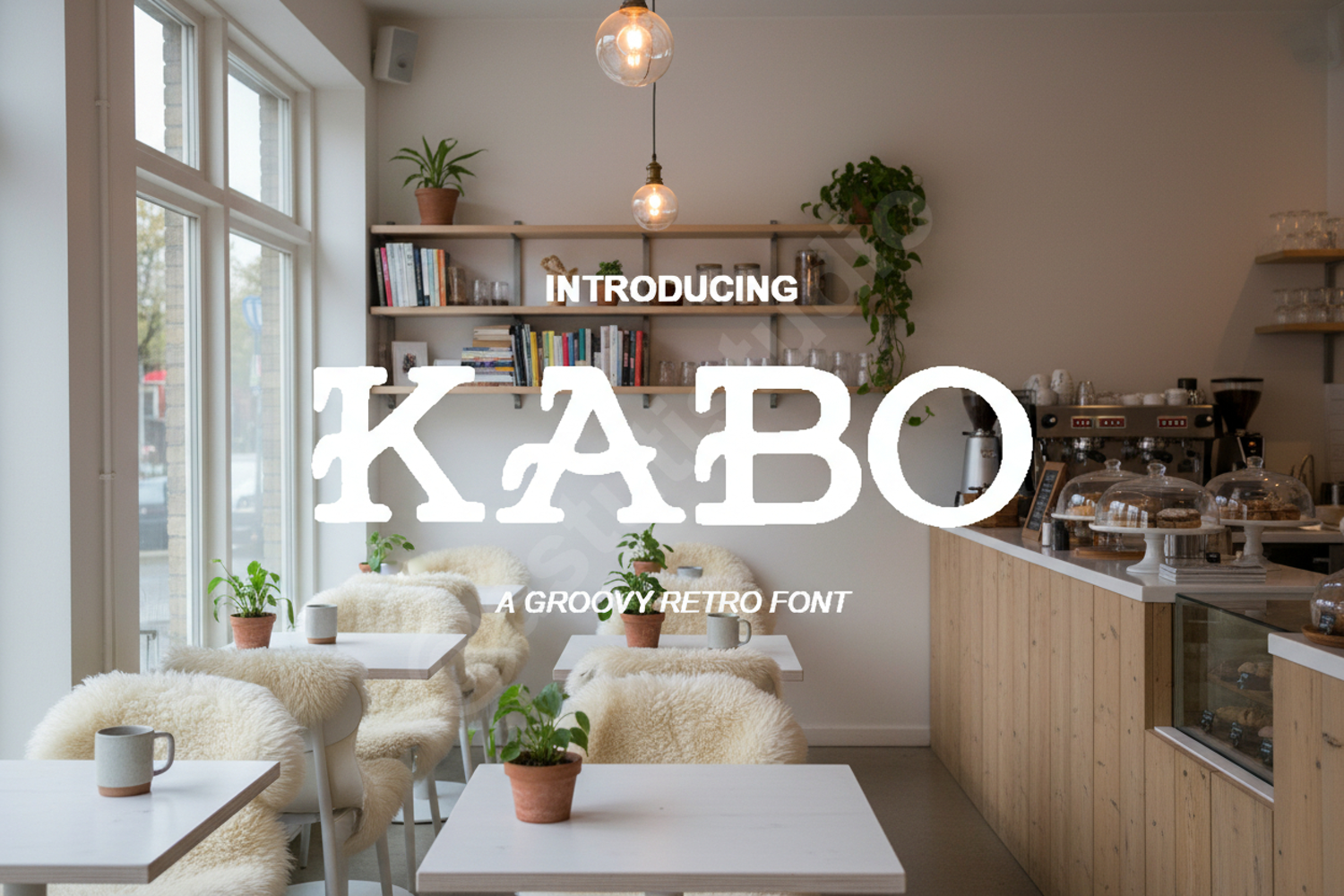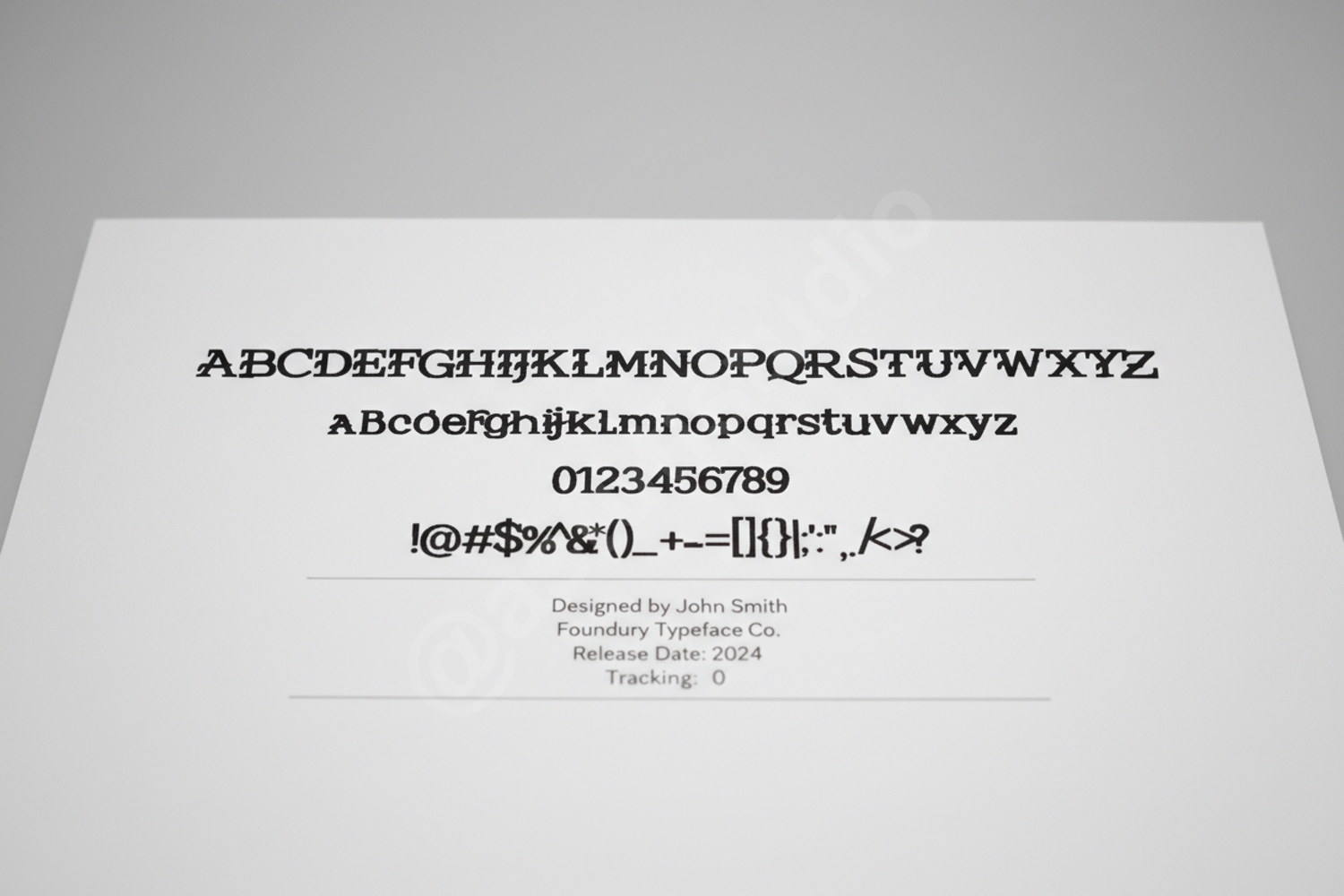
Kabo | Modern Minimalist Sans Serif
Kabo
Kabo is a premium sans serif typeface that embodies modern simplicity and sophisticated design. Crafted with clean lines and balanced proportions, Kabo offers a versatile solution for designers looking to elevate their creative projects with a touch of contemporary elegance and high-end appeal.
- Comprehensive Character Set (Uppercase and Lowercase)
- Numerals and Punctuation
- Branding and Identity: Create memorable logos and cohesive brand guidelines.
- Editorial Design: Perfect for headlines, pull quotes, and body text in magazines.
- Digital Marketing: Enhance social media graphics and professional advertising banners.
- Web Design: Ensure a clean and readable user experience across all digital platforms.
- Corporate Stationery: Ideal for business cards, letterheads, and internal documentation.